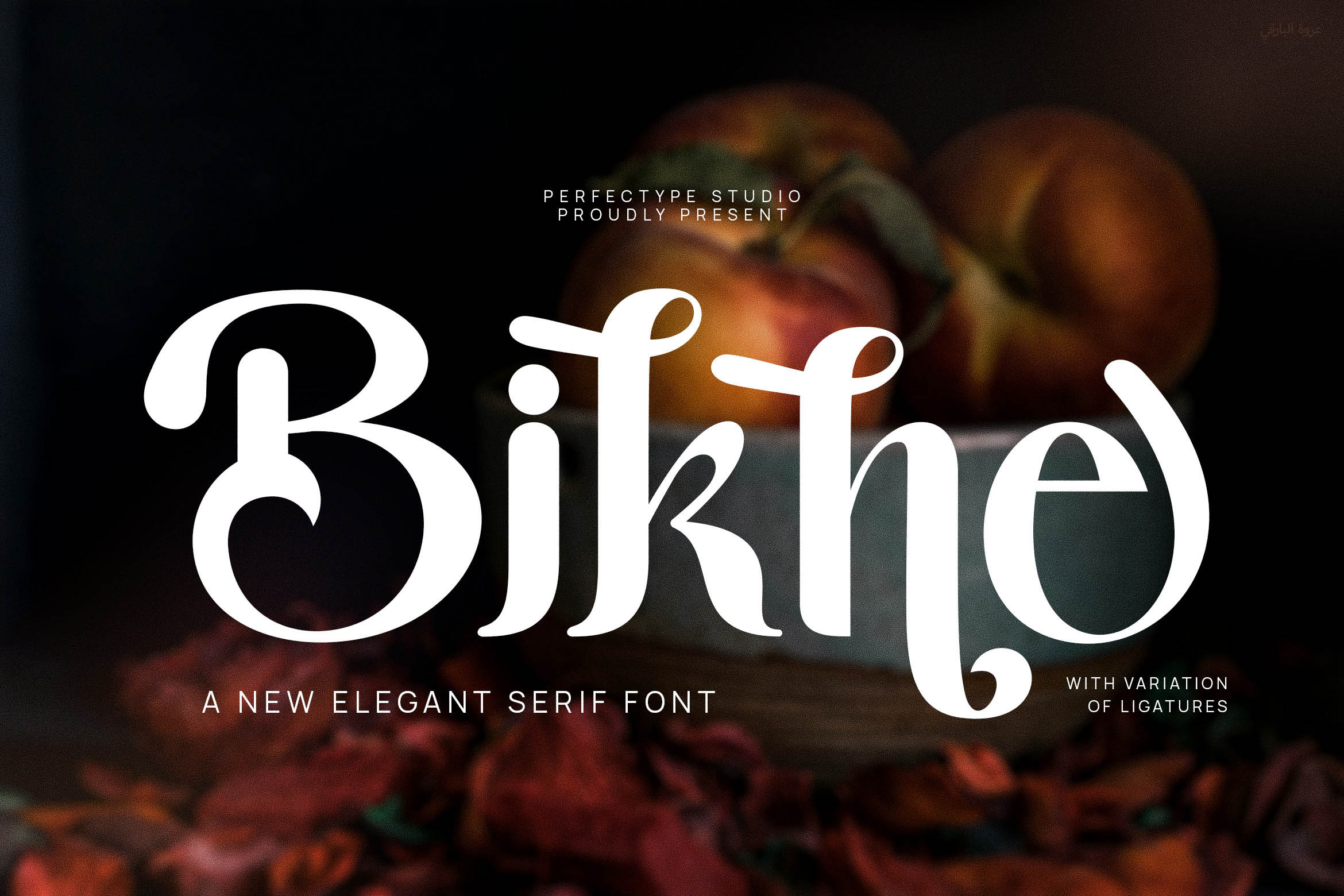
Bikne Unique Serif Display Font
This is a very elegant and classy font for all branding and logo designs This type of serif font is made with elegance and luxury so it is very suitable for all your design uses. This type of font is very suitable for your various needs such as branding projects, logos, social media posts, advertisements, labels, product packaging, photography, wedding designs, watermarks, invitation product designs, stationery, and any project, created at a high level legibility.